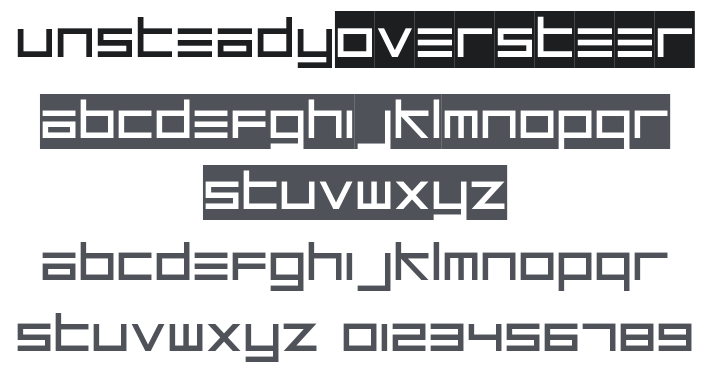
Unsteady Oversteer Font
About Unsteady Oversteer
Unsteady Oversteer is a bold, square geometric techno display typeface with a clever typographic trick — the lowercase letters are inverted versions of the capitals, creating a distinctive unicase rhythm that feels both digital and futuristic. Its crisp, blocky geometry radiates technological optimism with a pixel-art edge. Perfect for game titles, sci-fi interfaces, tech branding, cyberpunk posters, and any headline needing sharp, angular digital authority.